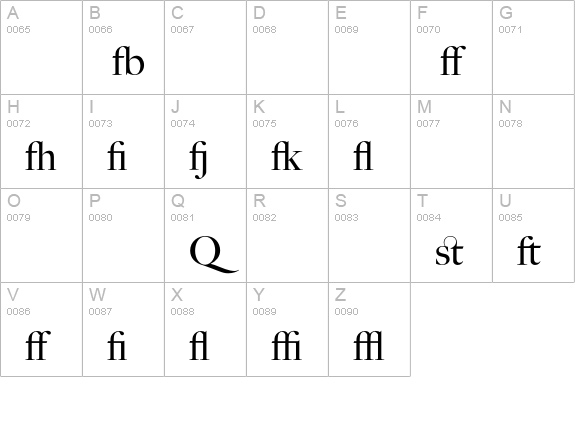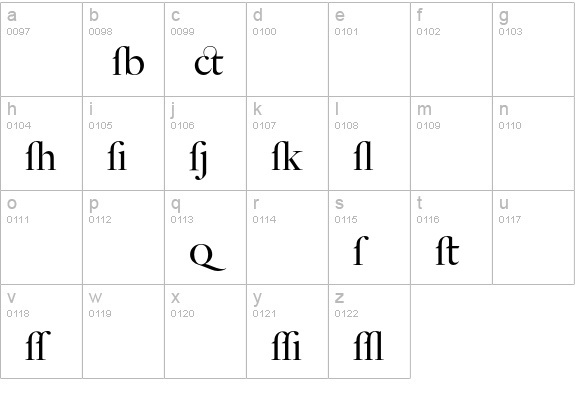
BigCaslon-Alt Font Details
BigCaslon-Alt is a timeless and elegant serif font that exudes sophistication and charm. With its generous x-height and distinctive serifs, this typeface commands attention and adds a touch of class to any design project. The refined curves and balanced proportions of BigCaslon-Alt make it a versatile choice for a wide range of applications, from editorial layouts to branding and packaging. The best part? BigCaslon-Alt is available for free download at FontsMarket.com. Whether you're a designer looking to elevate your typography game or a business owner seeking a polished look for your marketing materials, BigCaslon-Alt is the perfect choice. Don't miss out on this opportunity to enhance your projects with this exquisite font – download BigCaslon-Alt today and make a lasting impression!